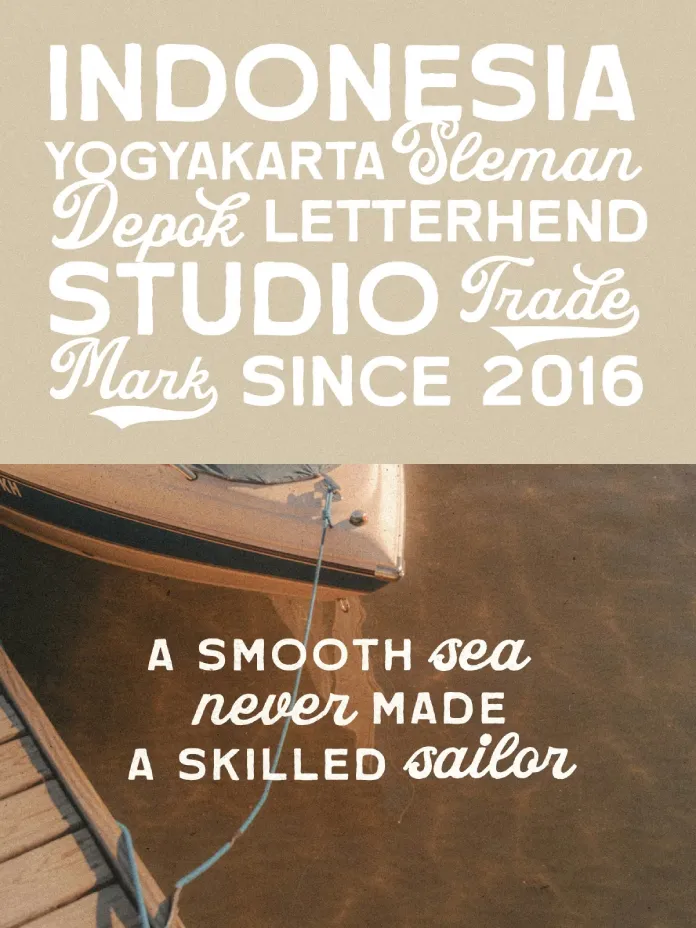
The Goldray Club Font Duo Brings a Retro Script and a Clean Sans Together in One Effortless Package.
Some font pairings take effort to assemble. You test one typeface against another, adjust weights, tweak spacing, and still end up with something that feels forced. Goldray Club by Letterhend Studio does none of that. It arrives as a complete creative system — a hand-drawn script paired with a clean, legible sans — and the two simply work. Together, they carry the kind of unhurried warmth that feels earned rather than designed.
Retro typography is everywhere right now. But most of it stays surface-level — a distressed texture here, a vintage badge shape there. Goldray Club operates differently. It reaches back not just for aesthetic nostalgia, but for the emotional resonance of mid-century travel design, sun-faded signage, and the graphic language of leisure culture. That’s a more specific, more intentional reference point, and it shows in the result.
This article examines why Goldray Club stands out in the current retro font landscape, how its dual-typeface structure creates design efficiency, and where it performs best for creative professionals working on branding, packaging, and editorial projects.
What Makes a Retro Script Font Duo Work — and When Does It Fail?
The font duo concept sounds simple. Pair a decorative face with a utilitarian one, and let them share the load. In practice, most duos fail at the pairing itself. The script feels too ornate, or the sans feels too sterile. The tonal gap between them forces the designer to work around both instead of with both.
Goldray Club solves this through what I’d call Tonal Calibration — a principle where both typefaces share enough visual warmth that neither dominates nor abandons the mood. The script in the Goldray Club carries a visible hand-drawn character. Its letterforms breathe. They tilt and flow the way actual handwriting does, with organic variation rather than mechanical repetition. Meanwhile, the sans stays approachable rather than corporate. It doesn’t feel like it wandered in from a tech brand deck. It belongs here.
That shared warmth is the key. When both faces occupy the same emotional register, designers don’t need to compensate. They can use the script for display headlines and the sans for supporting copy, and the hierarchy creates itself.
The Retro Warmth Principle in Typography
There’s a specific emotional quality to typography rooted in mid-20th century design. Call it the Retro Warmth Principle — the idea that certain letterforms carry an affective temperature that cooler, more geometric type simply cannot replicate. This quality comes from slight irregularity, from the suggestion of a human hand, from curves that don’t resolve into perfect arcs.
Goldray Club taps directly into this. The script component doesn’t try to be perfect calligraphy. It aims instead for the kind of confident, relaxed mark-making you’d find on a 1950s travel poster or a hand-lettered café menu from the same era. That imprecision is intentional, and it’s doing real work.
For designers, this matters because warmth is increasingly rare in commercial type. Much of the retro font revival leans heavily on distressed textures or exaggerated serifs rather than the underlying letterform quality. Goldray Club goes deeper than surface treatment.
Goldray Club Font Duo: Structure, Features, and Design Range
Understanding the technical construction of Goldray Club helps clarify where it performs well and why.
The duo ships with full uppercase and lowercase support across both faces. Numbers, punctuation, and multilingual characters are included. Alternates and ligatures give designers access to variation within the script — useful for avoiding repeated letterform combinations that can make hand-drawn fonts look mechanical at scale. PUA encoding ensures the alternates are accessible across software environments without workarounds.
That last point matters more than it sounds. PUA (Private Use Area) encoding means you can access special characters directly through glyph panels in Adobe Illustrator, InDesign, and Photoshop without relying on OpenType features that some applications handle inconsistently. For production work on packaging or print, that reliability is significant.
How the Script and Sans Divide Creative Labor
Goldray Club functions through what I’d describe as Complementary Role Separation — each typeface handles a specific layer of the design system without overlap or competition.
The script carries emotional weight. It establishes mood, signals personality, and draws the eye. Use it for brand names, taglines, headline elements, or anywhere the design needs to feel alive and handcrafted.
The sans handles information. It delivers body copy, descriptors, product details, and supporting text with clarity. It doesn’t try to be decorative. Instead, it creates breathing room around the script and ensures legibility at smaller sizes.
What makes Goldray Club different from other retro font duos?
Goldray Club draws from mid-century travel and leisure design rather than the more common Americana or Western retro aesthetic. Its script-and-sans structure is friendlier and more versatile than script-and-serif alternatives, and its alternates and ligatures provide professional-level glyph variety.